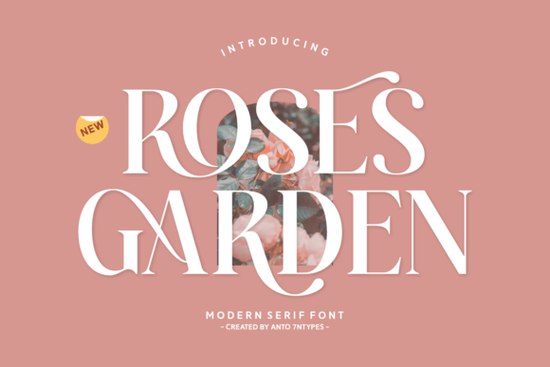
If you're looking for a typeface that feels romantic, lively, and elegant all at once, the Roses Garden Font might be exactly what your next project needs. It blends a rosy touch of orange with classic luxury and fancy flourishes, making it a strong choice for wedding invitations, birthday cards, branding, and more. Below, I'll walk you through what makes this font worth considering and how you can put it to work.
What Does the Roses Garden Font Look Like?
Roses Garden has a heart-swash style with modern curves and a warm, cheerful personality. The letterforms carry a romantic elegance without feeling heavy or overly traditional. Think of it as a font that balances sophistication with playfulness it looks refined enough for formal designs but approachable enough for casual, fun projects.
It comes with regular and italic styles, plus ligatures and alternate characters. That means you get real flexibility when pairing letters together, and your designs won't look repetitive or flat. The font also supports multiple languages, which is helpful if you sell internationally or create content for a multilingual audience.
Who Should Use This Font?
Roses Garden works well for a wide range of creatives:
- Wedding stationery designers The romantic swashes and elegant curves are a natural fit for save-the-dates, invitations, and menu cards.
- Print-on-demand sellers It adds personality to T-shirt designs, tote bags, and mugs without requiring extra graphics.
- Small business owners Use it for brand packaging, logo concepts, and social media posts that need a polished but friendly look.
- Crafters and hobbyists Perfect for greeting cards, scrapbooking layouts, and quote prints.
- Photographers The font works as a decorative overlay element on images, especially portrait and lifestyle photography.
Where Can You Use the Roses Garden Font?
This font is versatile enough for both print and digital projects. Here are some practical ways to use it:
- Wedding invitations and stationery The swashes and elegant alternates make each piece feel custom.
- Books and magazine covers Clean enough for readable titles with just enough flair to stand out.
- Greeting cards Birthday cards, thank-you notes, and holiday cards all benefit from its warm character.
- Logo design and brand packs Works well for boutique brands, florists, bakeries, and lifestyle businesses.
- T-shirt and apparel design The bold charm of the letterforms translates nicely to wearable typography.
- Social media graphics Quotes, announcements, and promotional posts look more polished with a font like this.
How Does It Compare to Other Elegant Fonts?
Roses Garden sits in a sweet spot between decorative and readable. Some ornate fonts sacrifice legibility for style, but this one keeps things clean enough for body text in short passages while still delivering visual impact in headlines.
If you're building a collection of elegant typefaces, pairing it with something like Lovine font or Emerale font gives you more range. A bold, clean serif combined with a swash-heavy script like Roses Garden font creates strong visual contrast in layouts.
Does It Support Multiple Languages?
Yes. Roses Garden includes multilingual character support, which means accented characters and special glyphs are covered. This is especially useful if you sell designs to customers in Europe, Latin America, or other regions where diacritical marks are common.
- Pair it wisely Use a simple, clean sans-serif or serif for body copy and let Roses Garden handle headlines and display text.
- Explore alternates and ligatures Don't settle for the default letters. Toggle stylistic options to find the best look for each word.